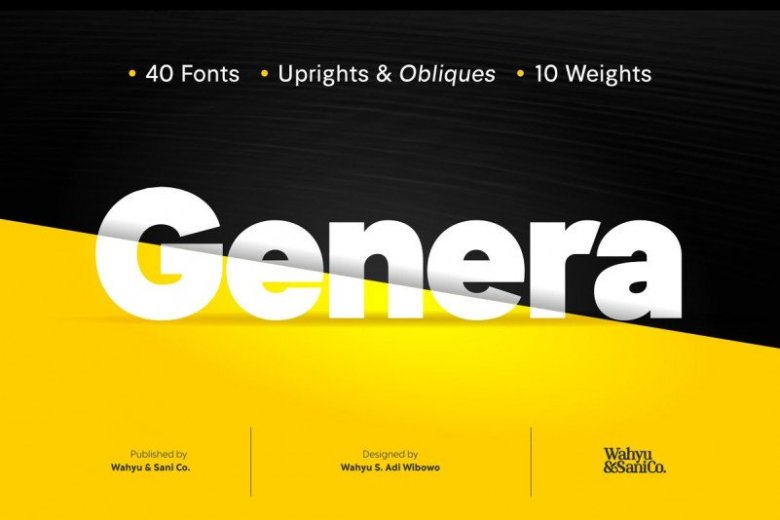
Genera Sans Font Family Free
This is a modern sans-serif by Wahyu & Sani Co.. This is a new modern geometrics sans with 44 fonts. Introducing Genera Font Family. It’s low contrast and neutral typeface for general design use. It was designed based on grotesque typefaces tradition with a unique touch to make the typeface has its own personality.
It has large x-height, generous width, almost consistent monoline look on all weights and the most noticeable part is the unique terminal form of lowercase ‘f’, ‘j’, ‘r’, and ‘y’ which have straight horizontal side and curved line in the other side.
Genera Sans Serif is will be perfect for logo, packaging, greeting cards, presentations, headlines, lettering, posters, branding, quotes, titles, magazines headings, web layouts, art quote, typography, advertising, invitations, packaging design, books, book title, and nearly any creative design.